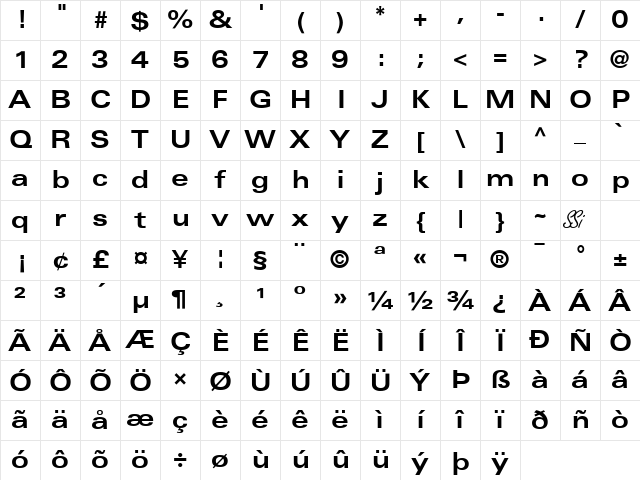
Nova Expanded SSi Bold Expanded Free Font
Nova Expanded SSi Bold Expanded
Style: Bold Expanded
Nova Expanded SSi Family
Nova Expanded SSi Bold Expanded
Design Context for Nova Expanded SSi
Nova Expanded SSi is a composed and adaptable typeface that performs quietly and consistently across a wide range of design contexts. Its bold stroke weight gives it real presence on the page.